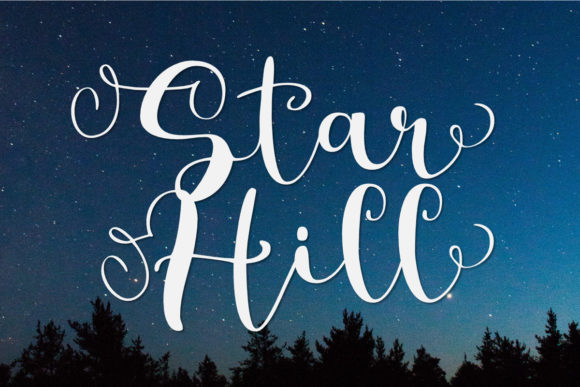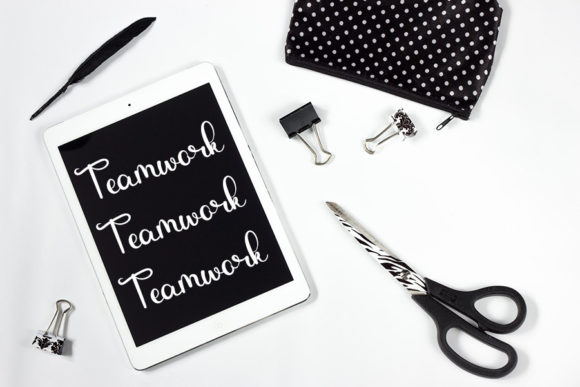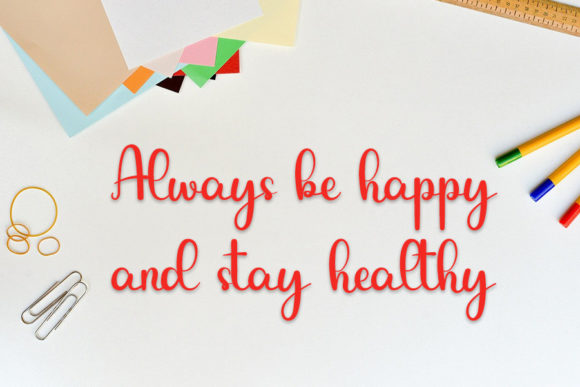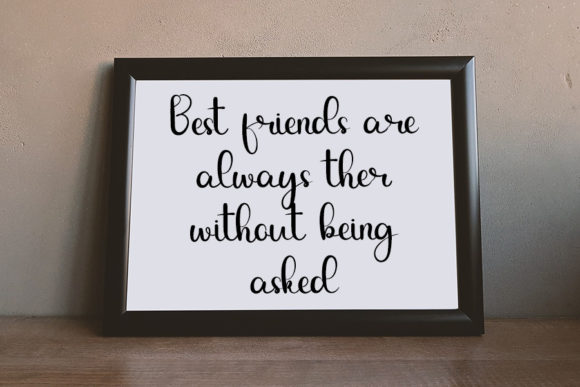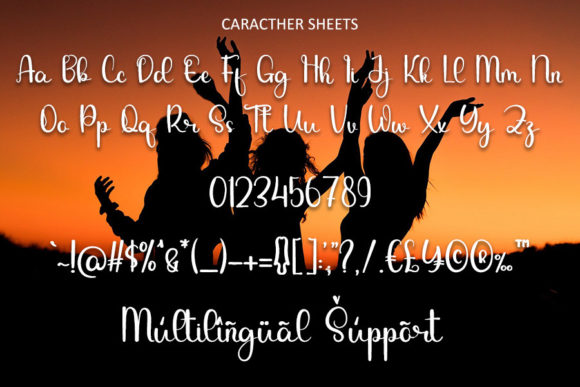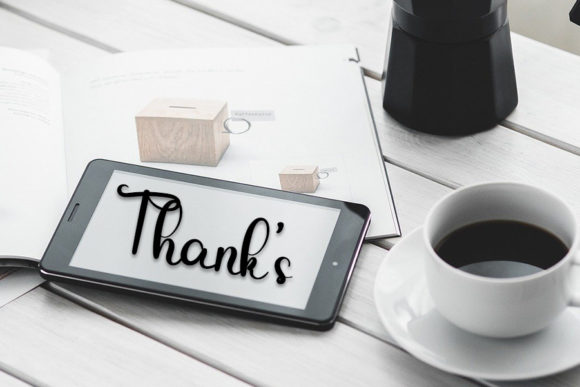
Besties Forever Font
About Besties Forever Font
Besties Forever is a stylish handwritten font with a contemporary atmosphere and impeccable form, inspired by a timeless classic calligraphy. Not too thin and not too thick, balanced and varied, this font was designed to enhance the beauty of your projects.